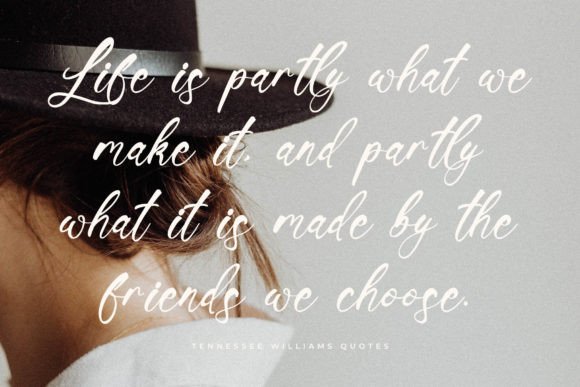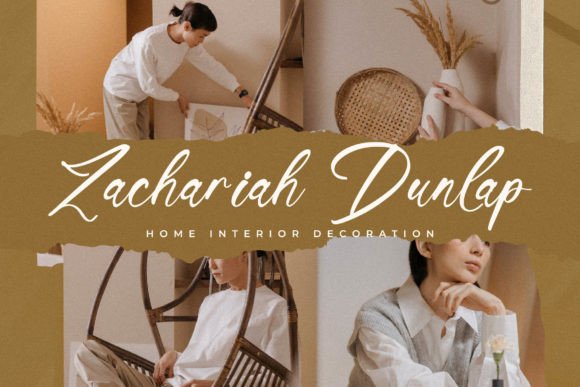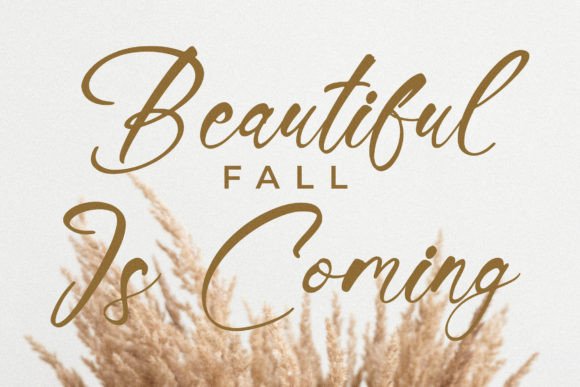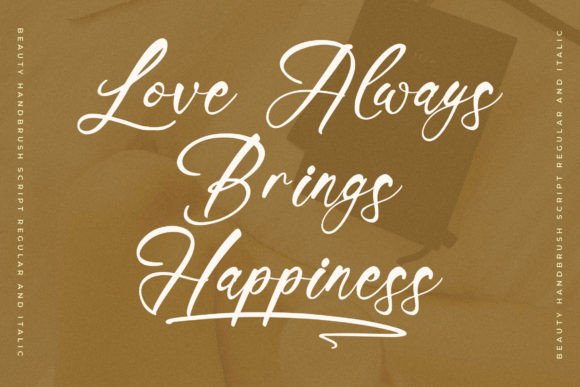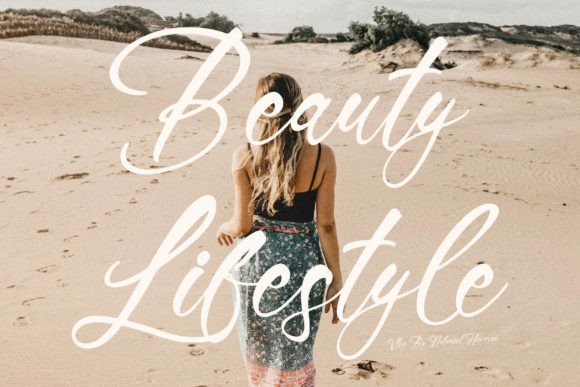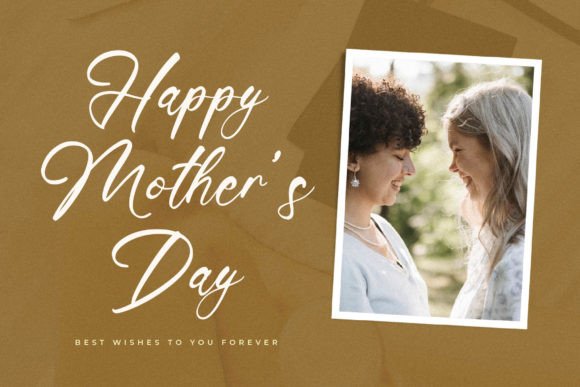
The Elusive Perfect Font: My Encounter with Bradley Milestiago
Ah, the quest for the perfect font. We’ve all been there – stuck in the depths of a design project, scrolling through font libraries, and yet, nothing seems quite right. I recall a particularly frustrating moment when a client requested a “beautiful script font” for their branding project. After hours of searching, I stumbled upon Bradley Milestiago, and it was love at first sight. In this article, I’ll share my experience with this stunning font, its capabilities, and how to make the most of it in your designs.
An Honest Review of Bradley Milestiago
- ✨ Elegant, handbrush script style that’s perfect for projects requiring a personal touch
- ✅ Highly versatile, suitable for logos, branding, packaging, posters, and more
- 💫 Beautifully crafted, with attention to detail and a unique character
- 🌈 Extensive language support, making it a great choice for international projects
While Bradley Milestiago is an exceptional font, there are a few minor considerations to keep in mind:
- ⚠️ Some users may find the font a bit too ornate for very small text sizes or body text
- 🤔 Limited availability of condensed or bold weights, which might limit its use in certain design contexts
A Practical Guide to Using Bradley Milestiago
- Experiment with OpenType features, such as ligatures and stylistic alternates, to add personality to your text
- Explore the OpenType panel to access advanced features like glyphs, ligatures, and stylistic sets
The Story Behind Bradley Milestiago
While the origins of Bradley Milestiago are shrouded in mystery, it’s clear that the designer poured their heart and soul into crafting this exquisite font. Imagine a designer, fueled by passion and creativity, carefully crafting each letterform to evoke a sense of elegance and sophistication. The result is a font that’s both timeless and trendy, perfect for designers seeking a unique touch.
| Font Name | Bradley Milestiago Font |
| Author | Glorytype Studio |
| What type of projects is Bradley Milestiago suitable for? | Bradley Milestiago is versatile and can be used for various projects, including logos, branding, packaging, posters, mugs, quotes, and more. |
| Is Bradley Milestiago easy to read? | Yes, Bradley Milestiago is designed to be legible, even at smaller text sizes. However, it’s best suited for display text or headings. |
| Does Bradley Milestiago support multiple languages? | Yes, Bradley Milestiago has extensive language support, making it a great choice for international projects. |